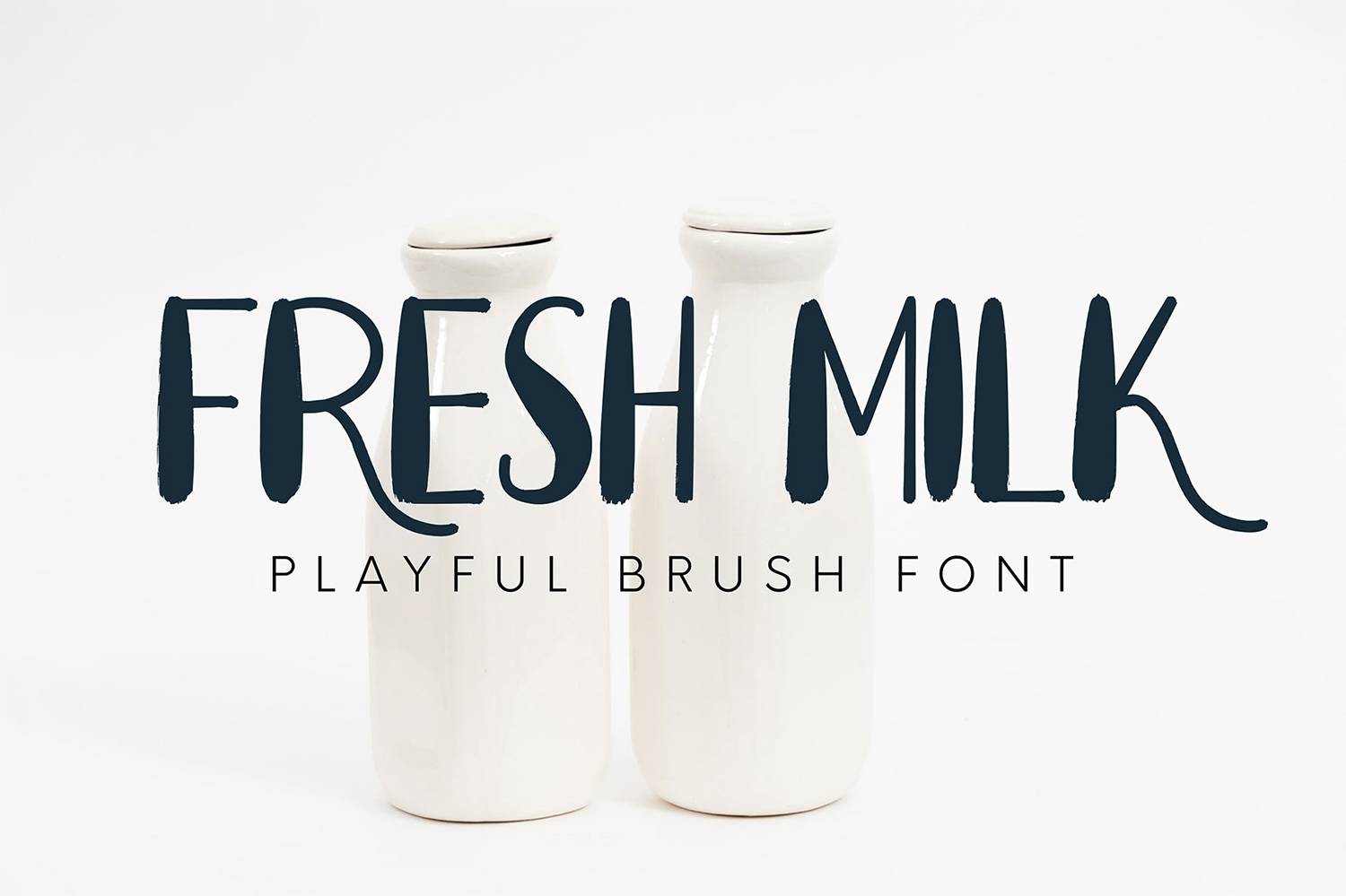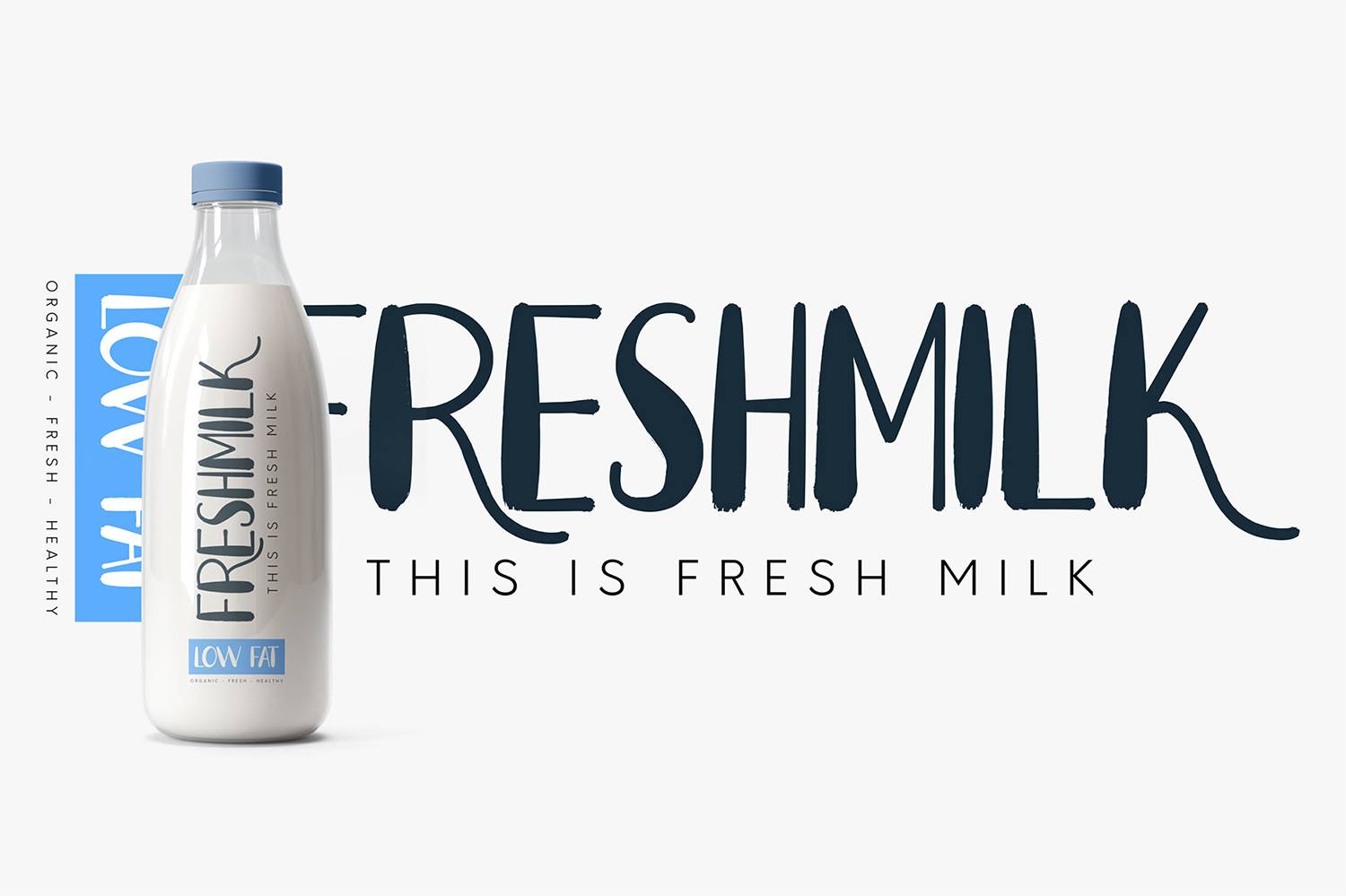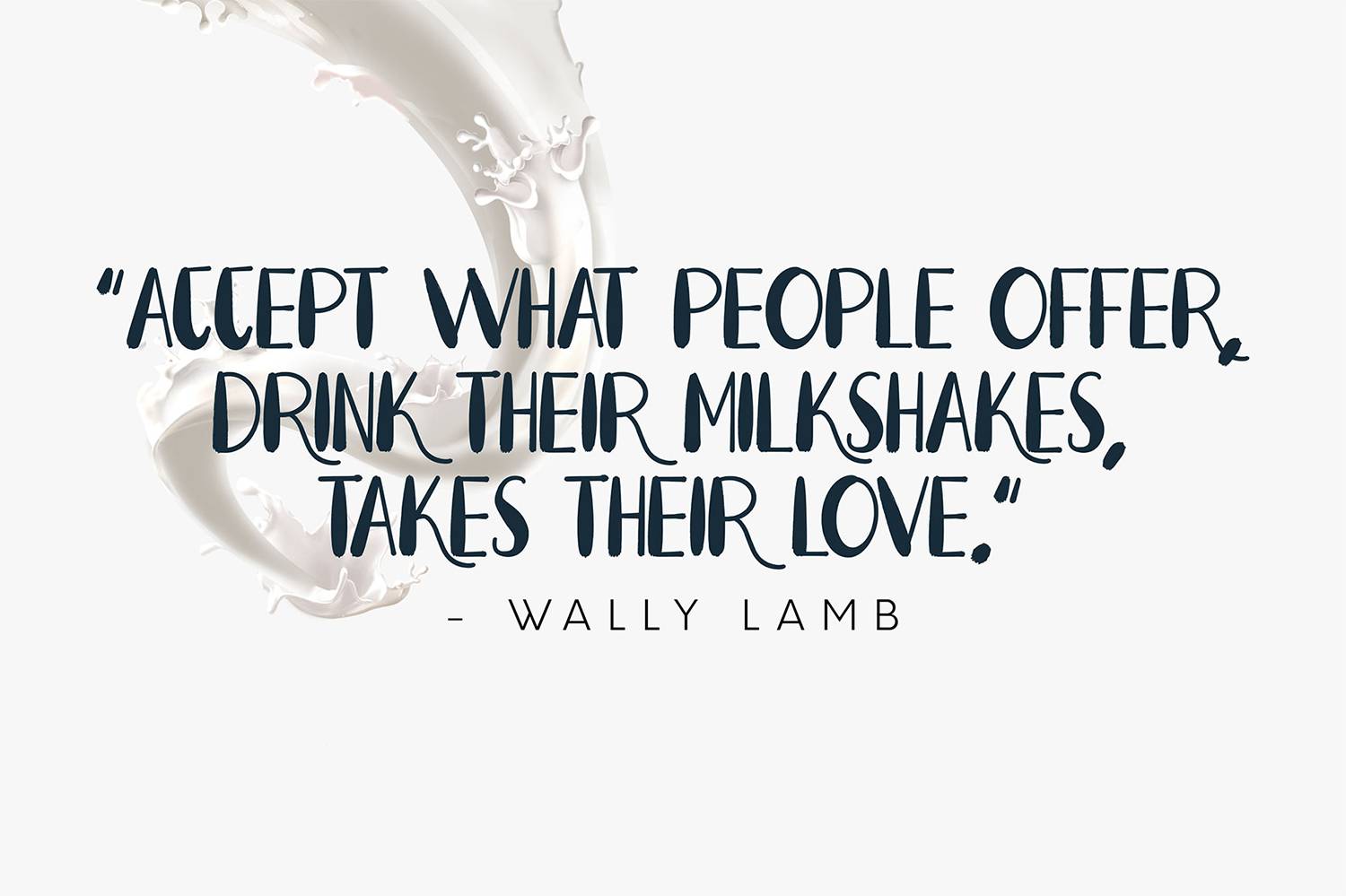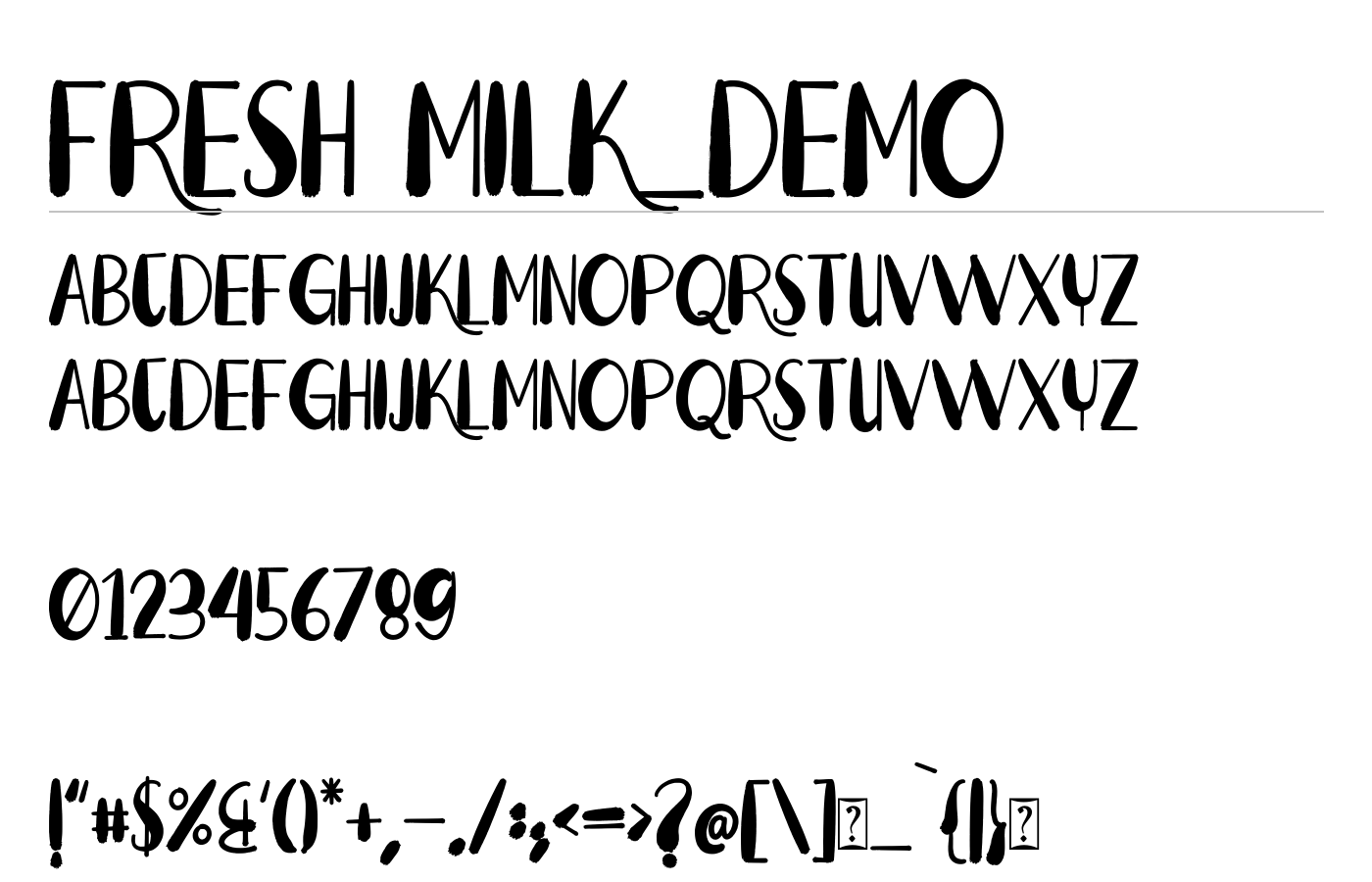
Fresh Milk is a playful and hand-drawn sans serif font featuring tall, narrow letterforms with irregular stroke widths and quirky, whimsical details. Its casual, organic style gives off a friendly and creative vibe, making it ideal for fun branding, headlines, and creative projects that seek a personal touch. This font works especially well for packaging, posters, and designs aimed at a youthful or artistic audience.
Fresh Milk Font
About Fresh Milk Font